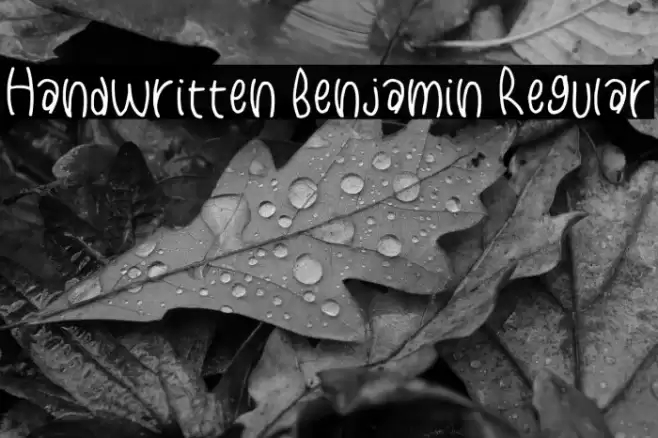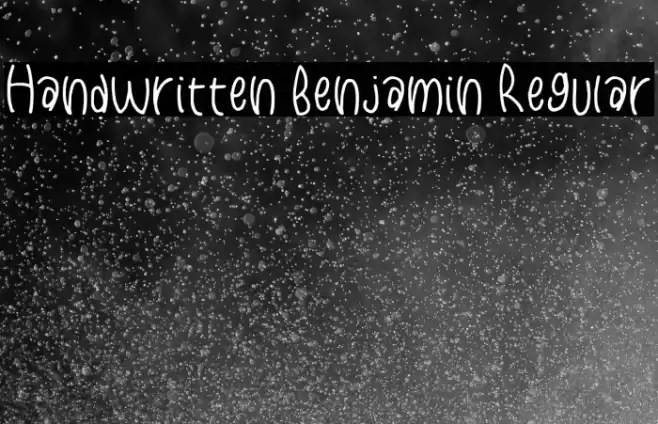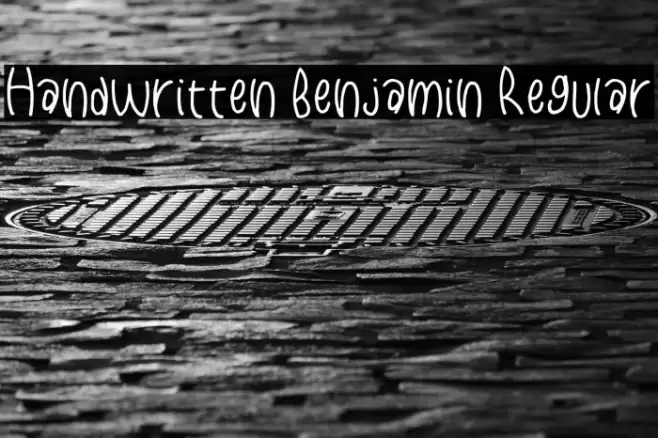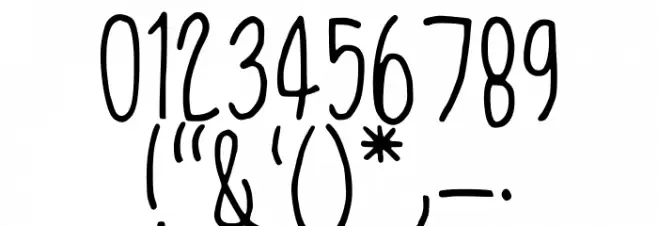
Handwritten Benjamin Regular Font
Handwritten Benjamin Regular Description
This font exudes a playful and casual handwritten style, characterized by its smooth and flowing letterforms. The uppercase and lowercase letters maintain a consistent height, giving it a balanced appearance. The strokes are slightly irregular, adding to its charm and authenticity, reminiscent of personal notes or informal correspondence. The numbers and special characters are crafted with the same attention to detail, ensuring a cohesive look across all glyphs. This font is perfect for projects that require a personal touch, such as invitations, greeting cards, or creative branding.
A playful, casual handwritten font with smooth, flowing letterforms from Regular fonts.
- Proposed Projects: Ideal for invitations, greeting cards, personal notes, and creative branding.
- Overall Style: Casual
- Use Case: Invitations, Greeting cards, Personal notes